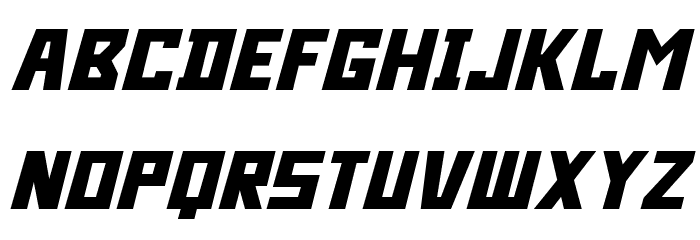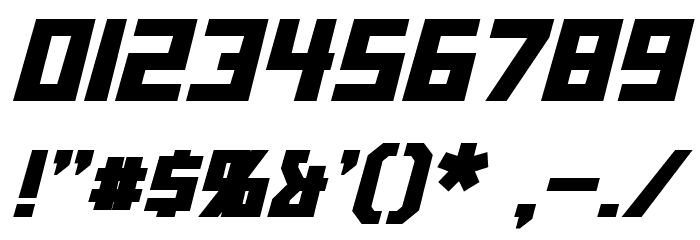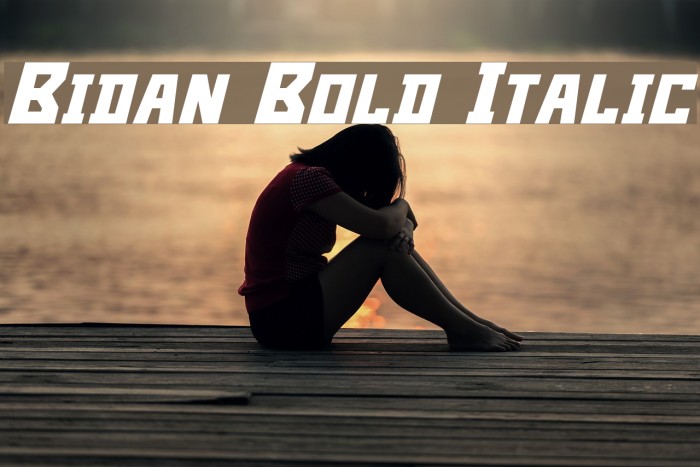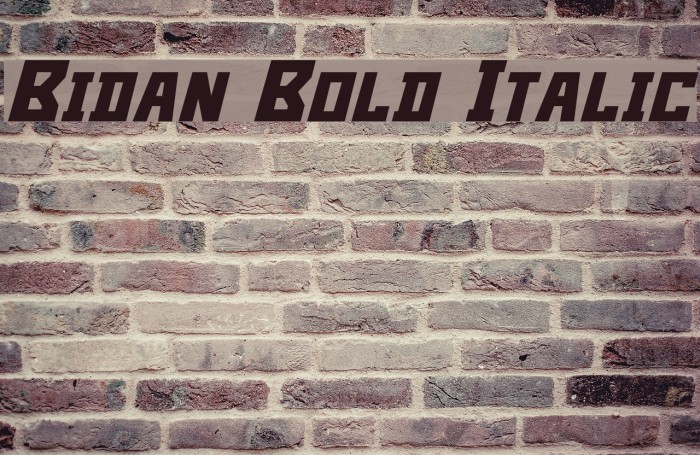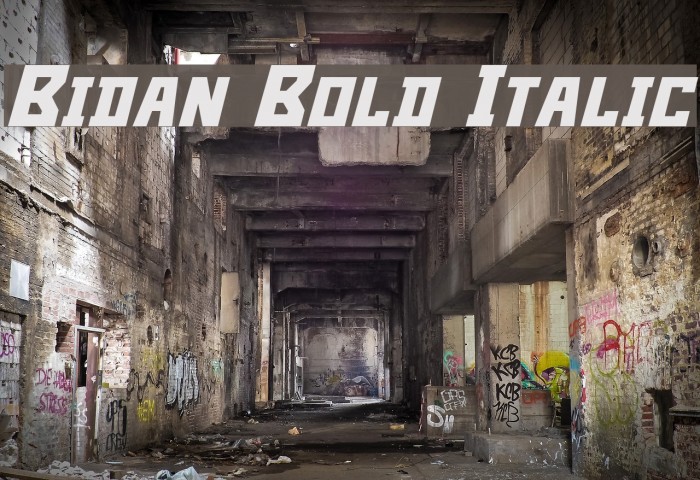
Bidan Bold Italic Font
This font features a bold and italicized style with a strong, angular design. The characters are sharply defined, giving a sense of movement and dynamism. The uppercase letters are particularly striking, with a consistent slant that adds to the overall boldness. The numbers and special characters maintain this angular aesthetic, ensuring a cohesive look across all glyphs. The font's thick strokes and italic slant make it ideal for attention-grabbing headlines or impactful logos. Its unique style can add a modern and edgy feel to any design project.
A bold, italicized font with sharp, angular characters and a dynamic style.
- Proposed Projects: Ideal for sports branding, dynamic posters, edgy logos, and modern advertising campaigns.